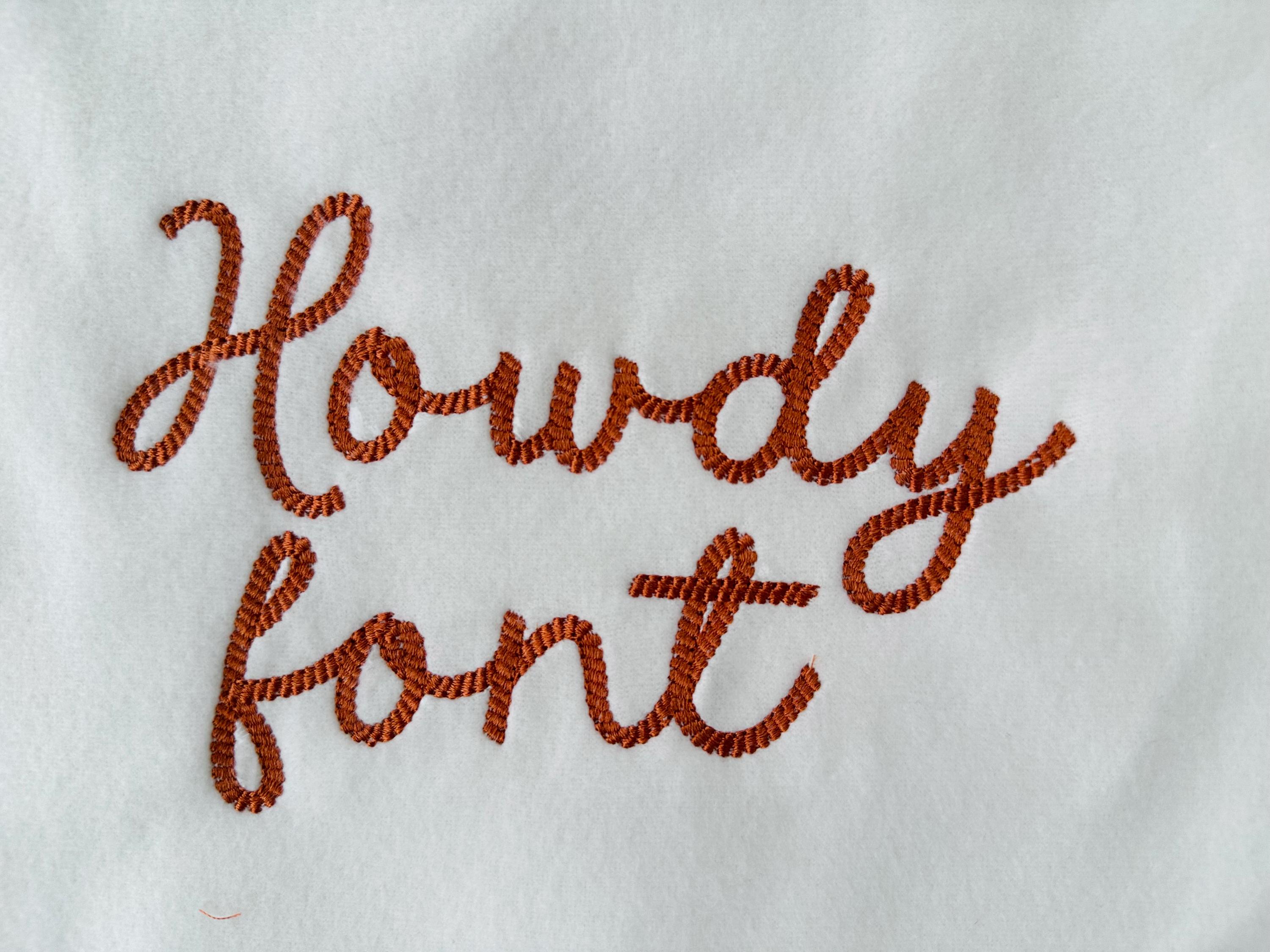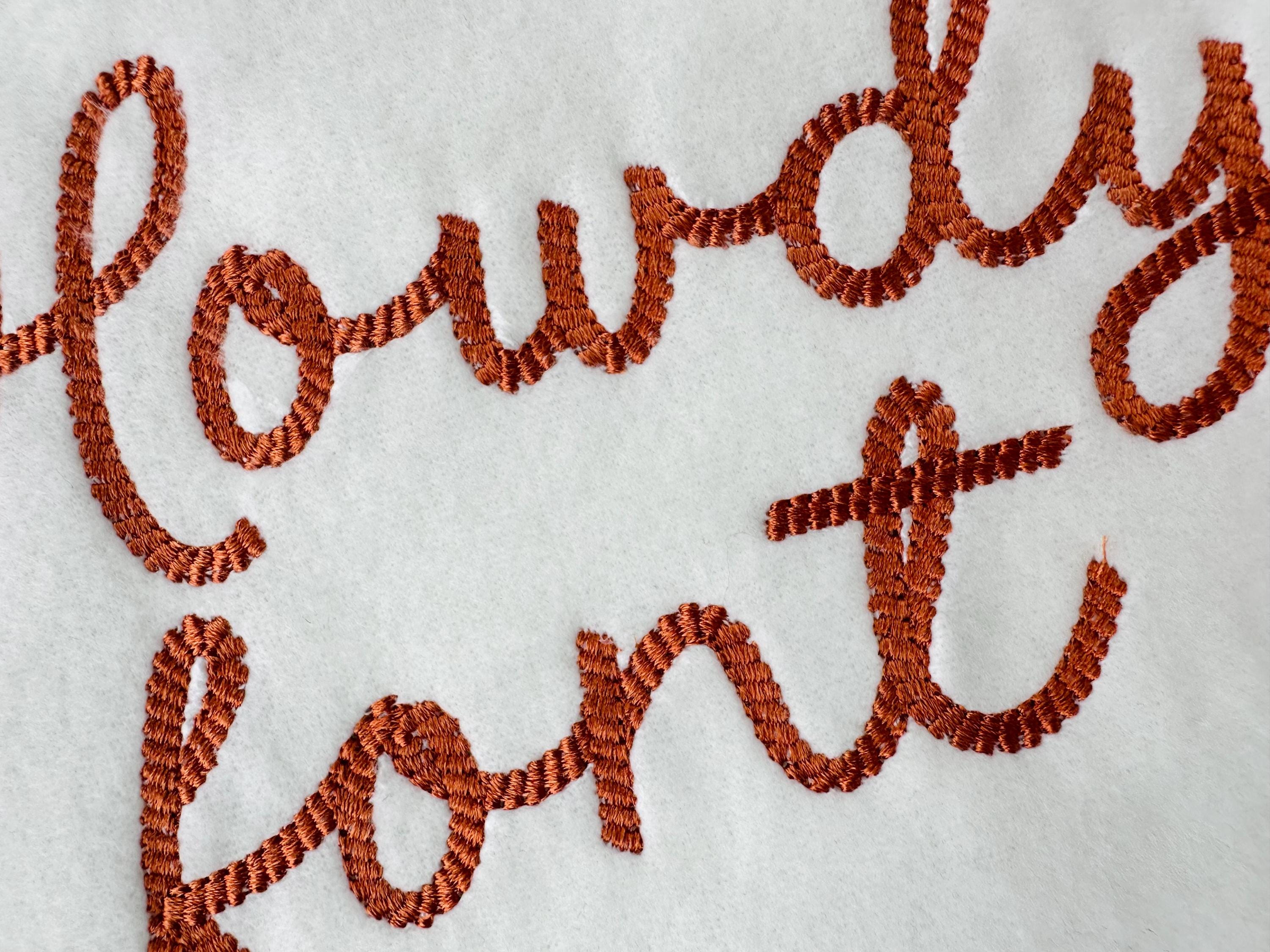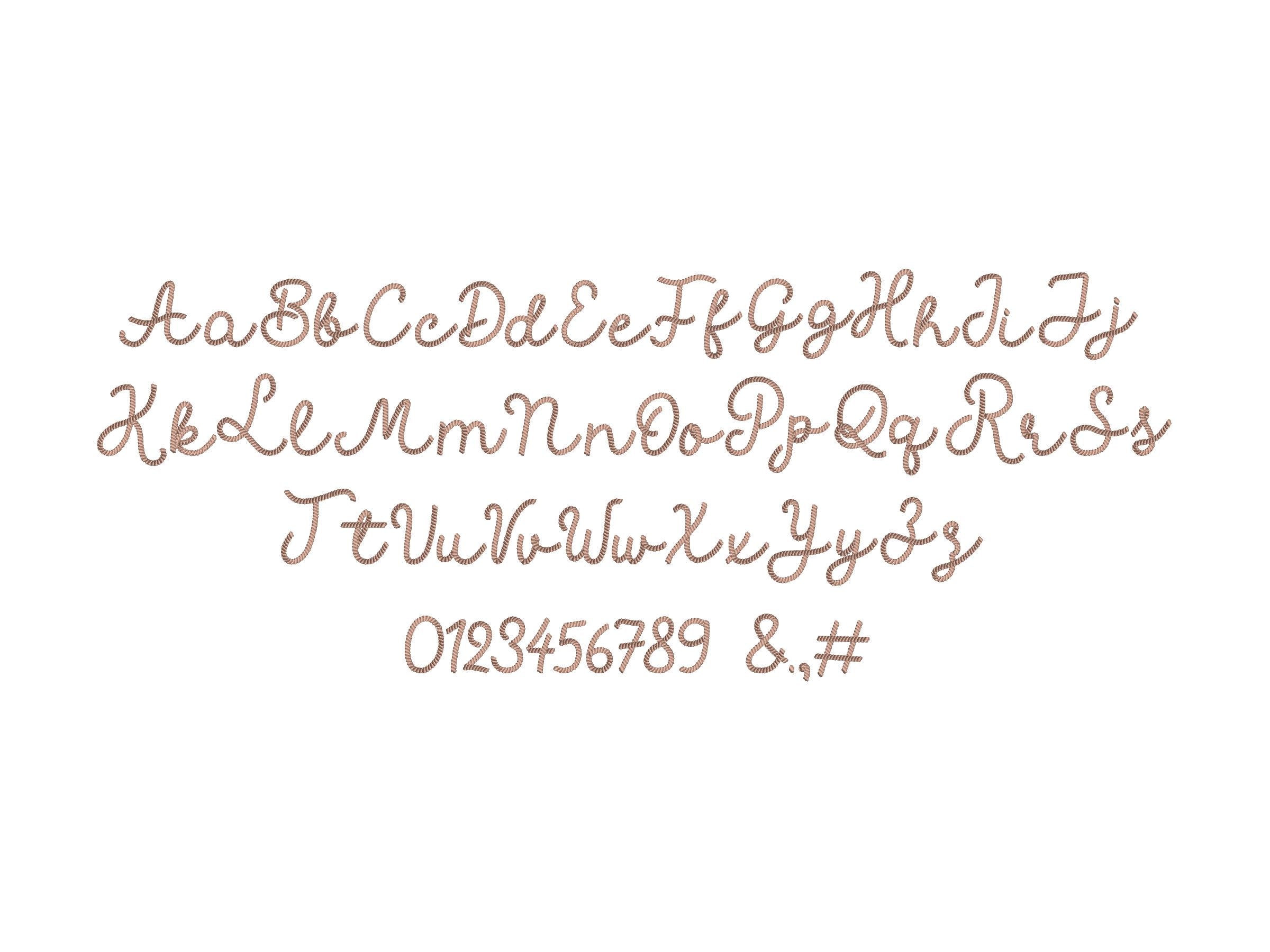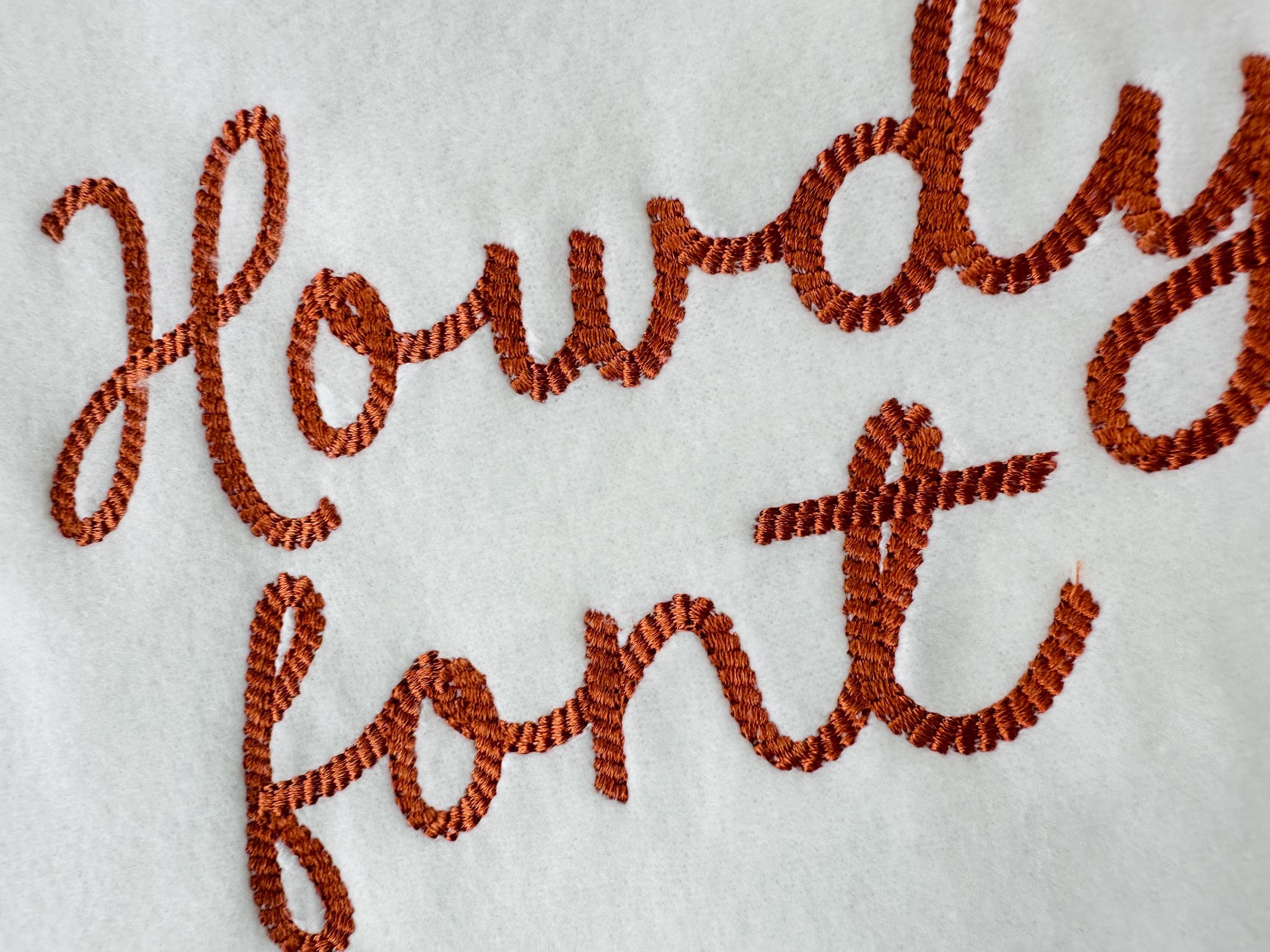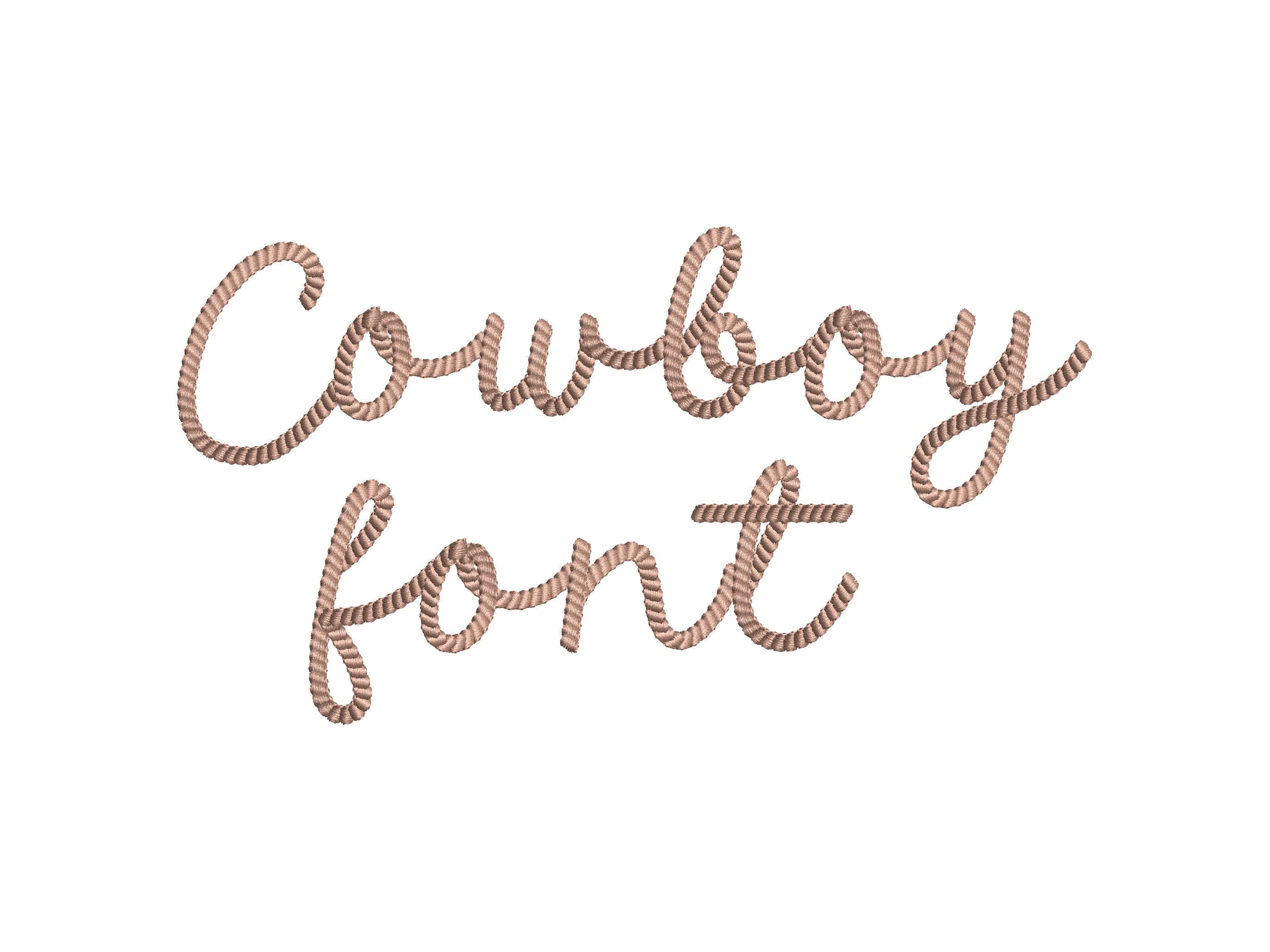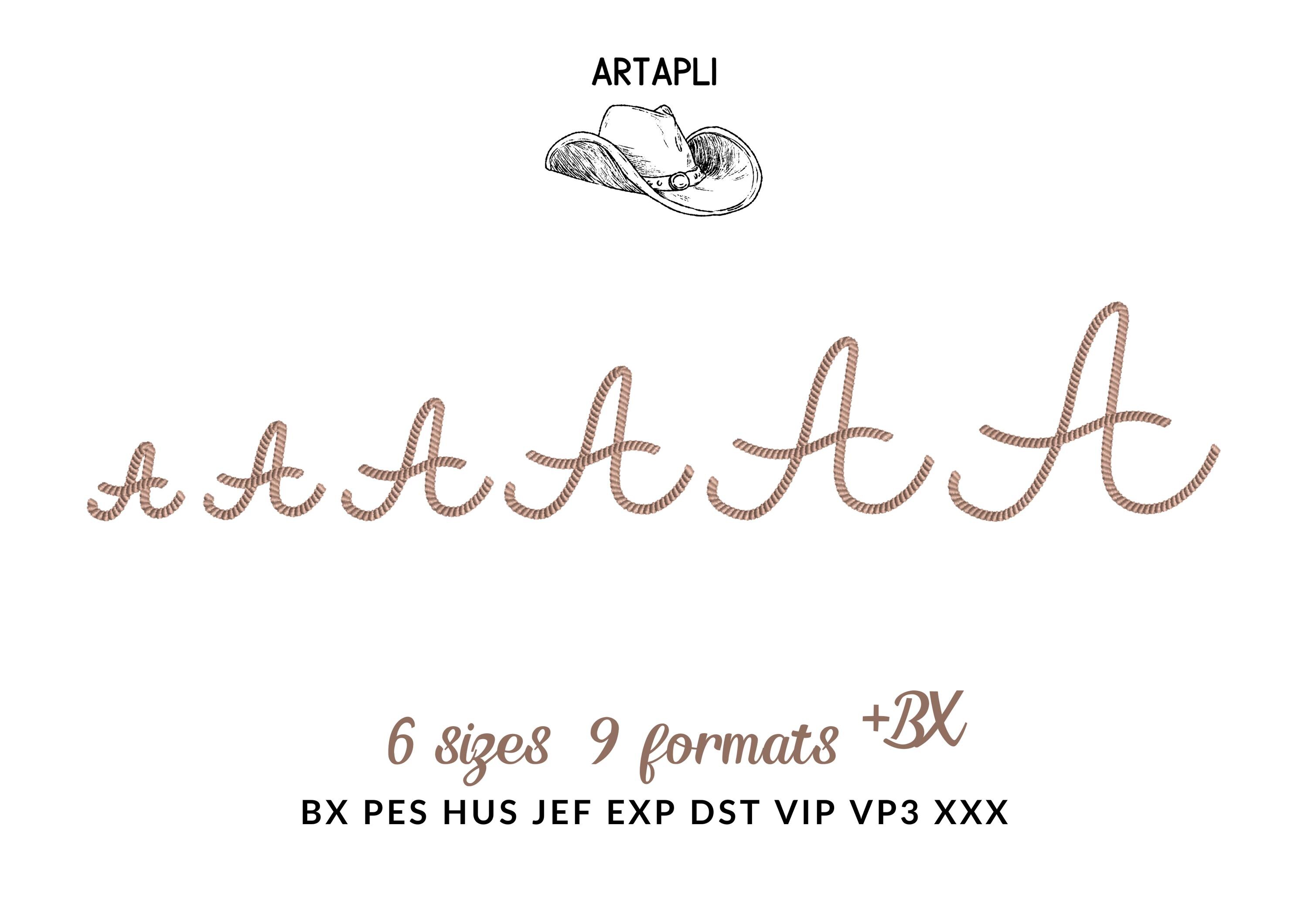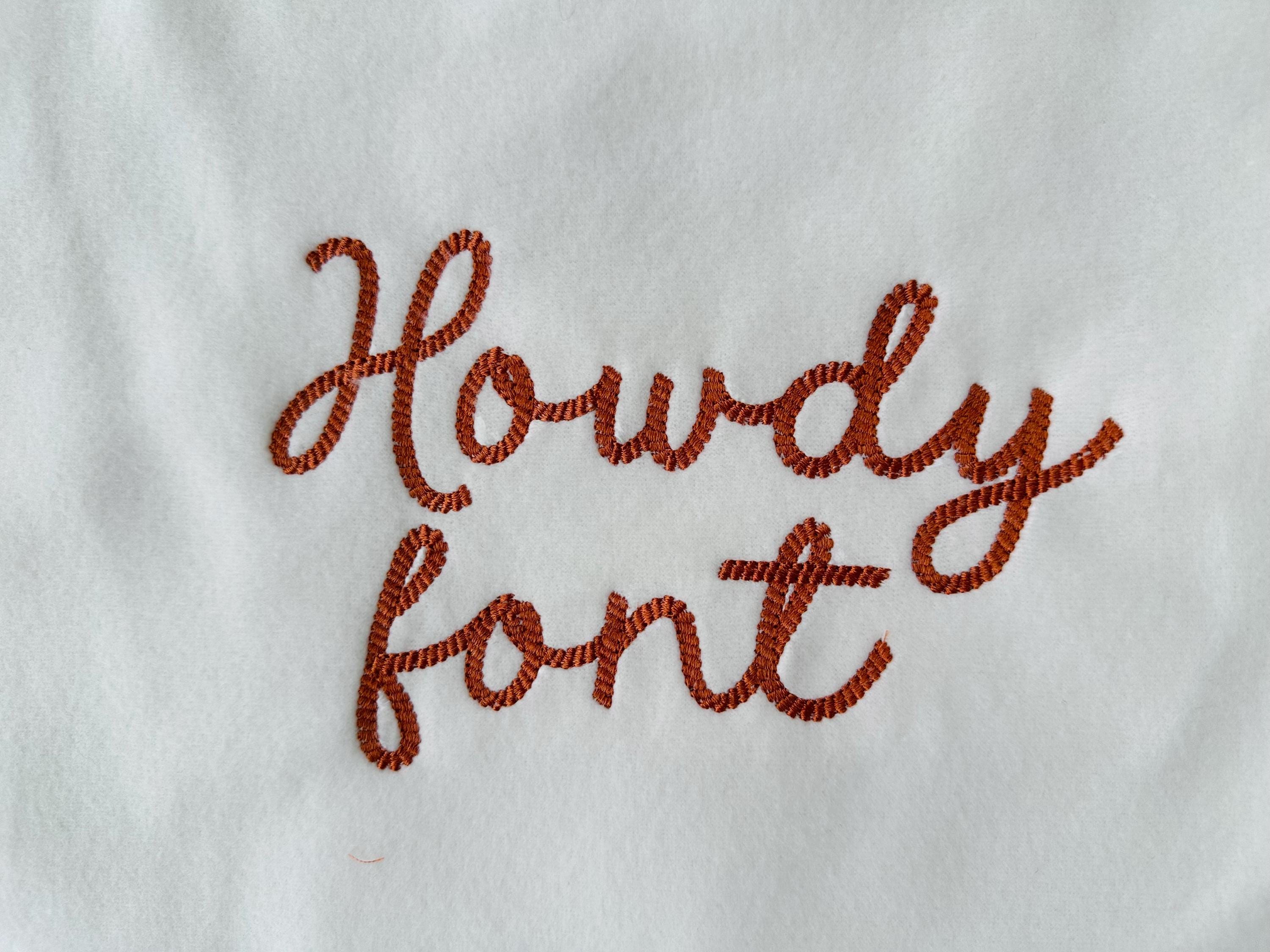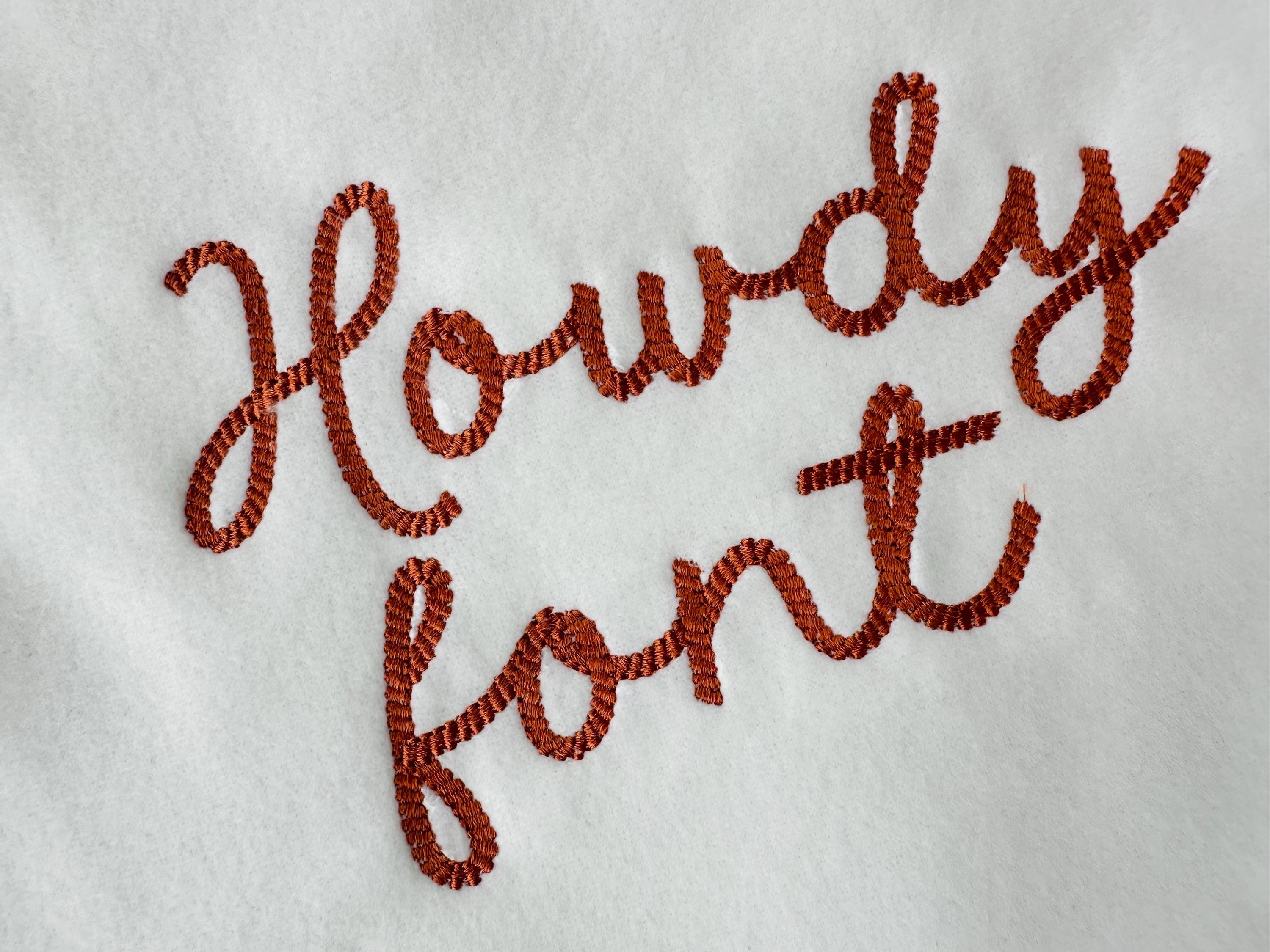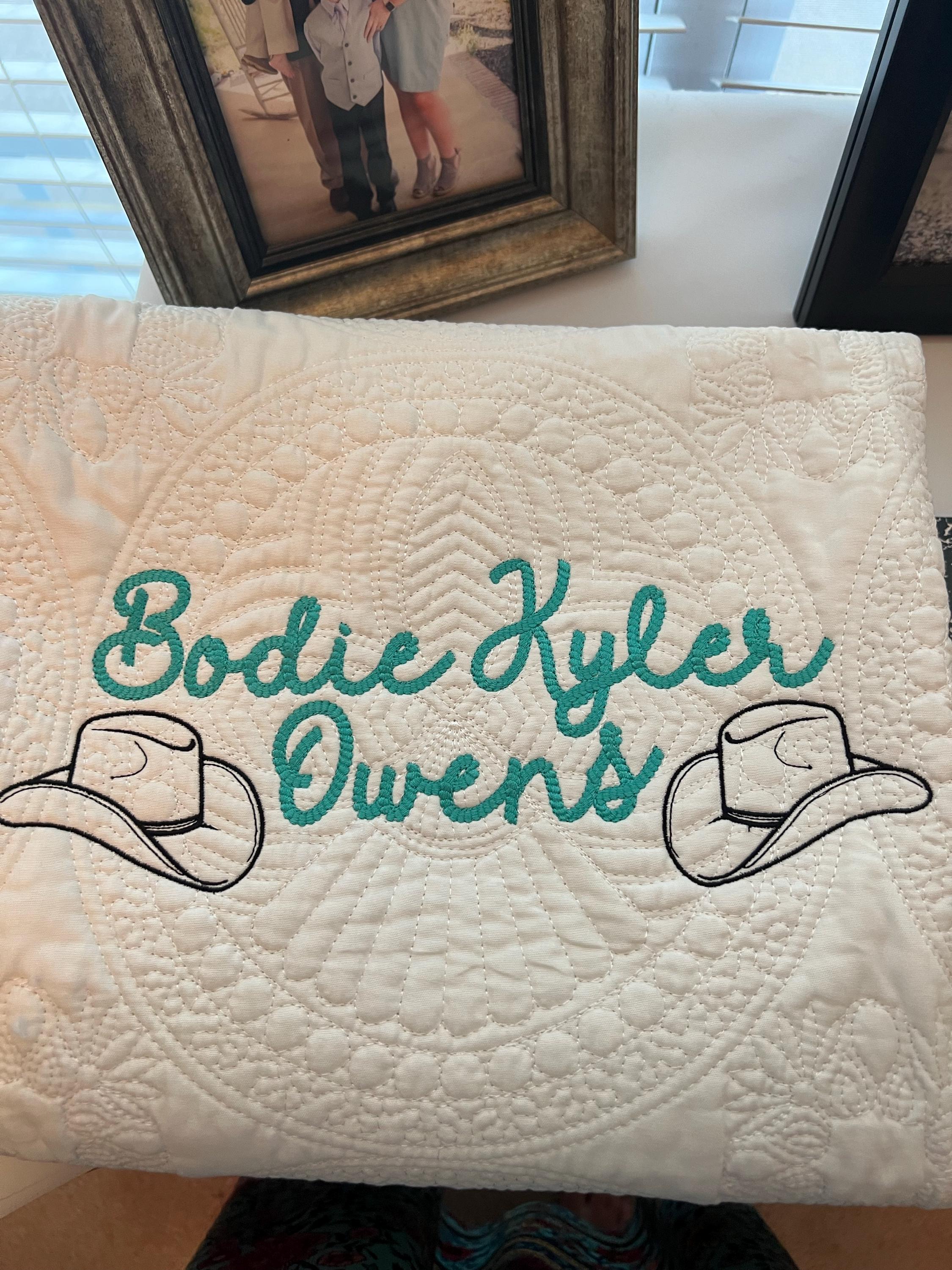
Cowboy rope stitch FONT handwritten alphabet monogram letters machine embroidery designs assorted sizes 1.3 up to 3.6 inch Rodeo script font
Entire alphabet uppercase and lowercase letters, numbers, and punctuation.
The font has an awesome textured rope stitch! No special thread is required, just regular machine embroidery threads.